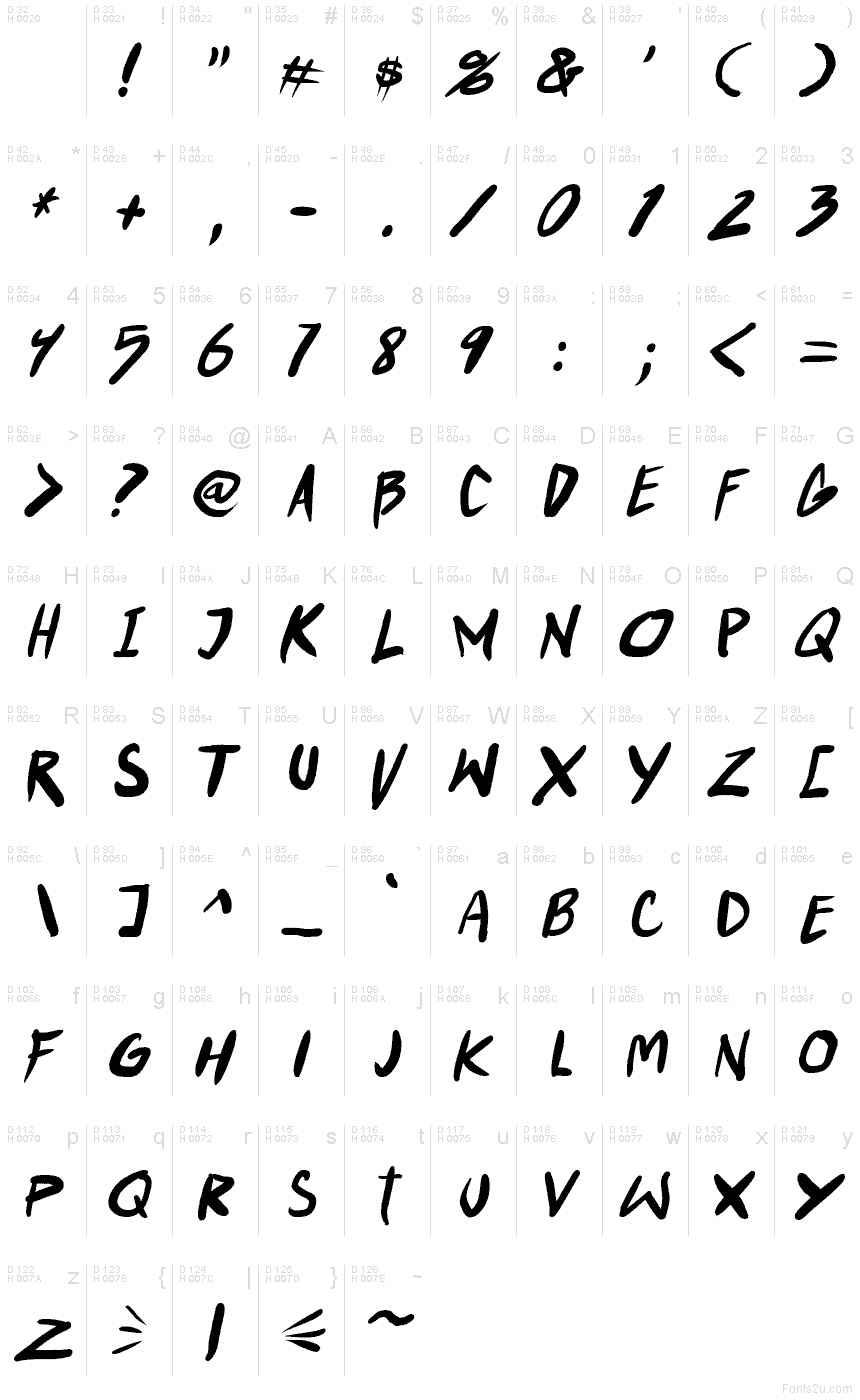
Punkboy 2.0 Italic
Punkboy 2.0 Italic font by PressGang Studios is a free comic display typeface that feels like it’s been ripped straight from a marker-soaked sketchbook. The letters lean hard into their slant, with chunky, brushy strokes and rough edges that look quick, loud, and a little unruly. There’s a strong forward motion in every word, giving your titles the energy of a scribbled note on a gig flyer or a scrawled tag on a brick wall.
Using Punkboy 2.0 Italic, you can crank up the attitude on zines, posters, streetwear graphics, album covers, YouTube thumbnails, and bold social posts. This free font shines when it’s big and unapologetic; pair it with a clean, neutral sans serif for body text to keep layouts readable. Keep letter spacing tight so the words feel like a fast, inky shout across the page.